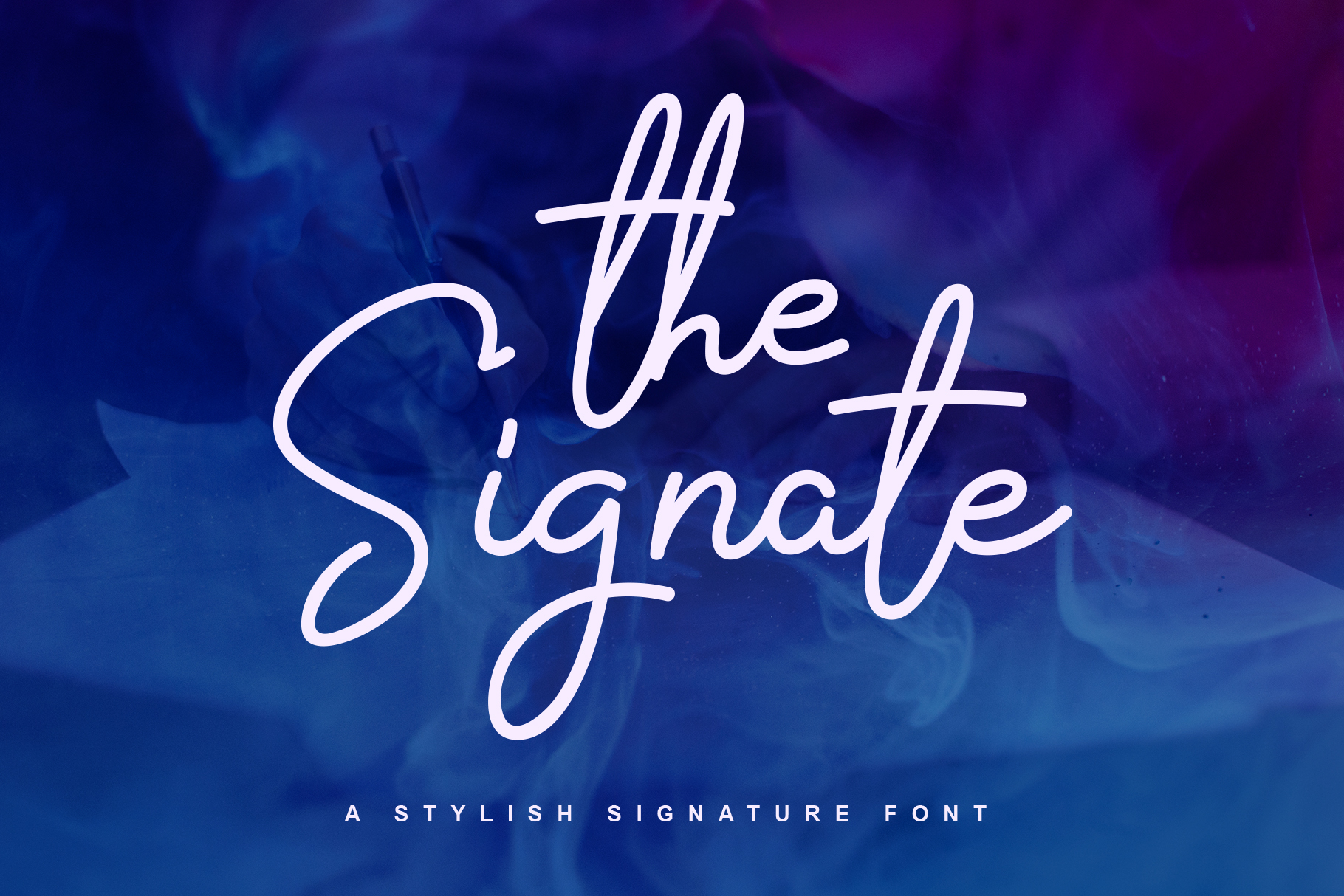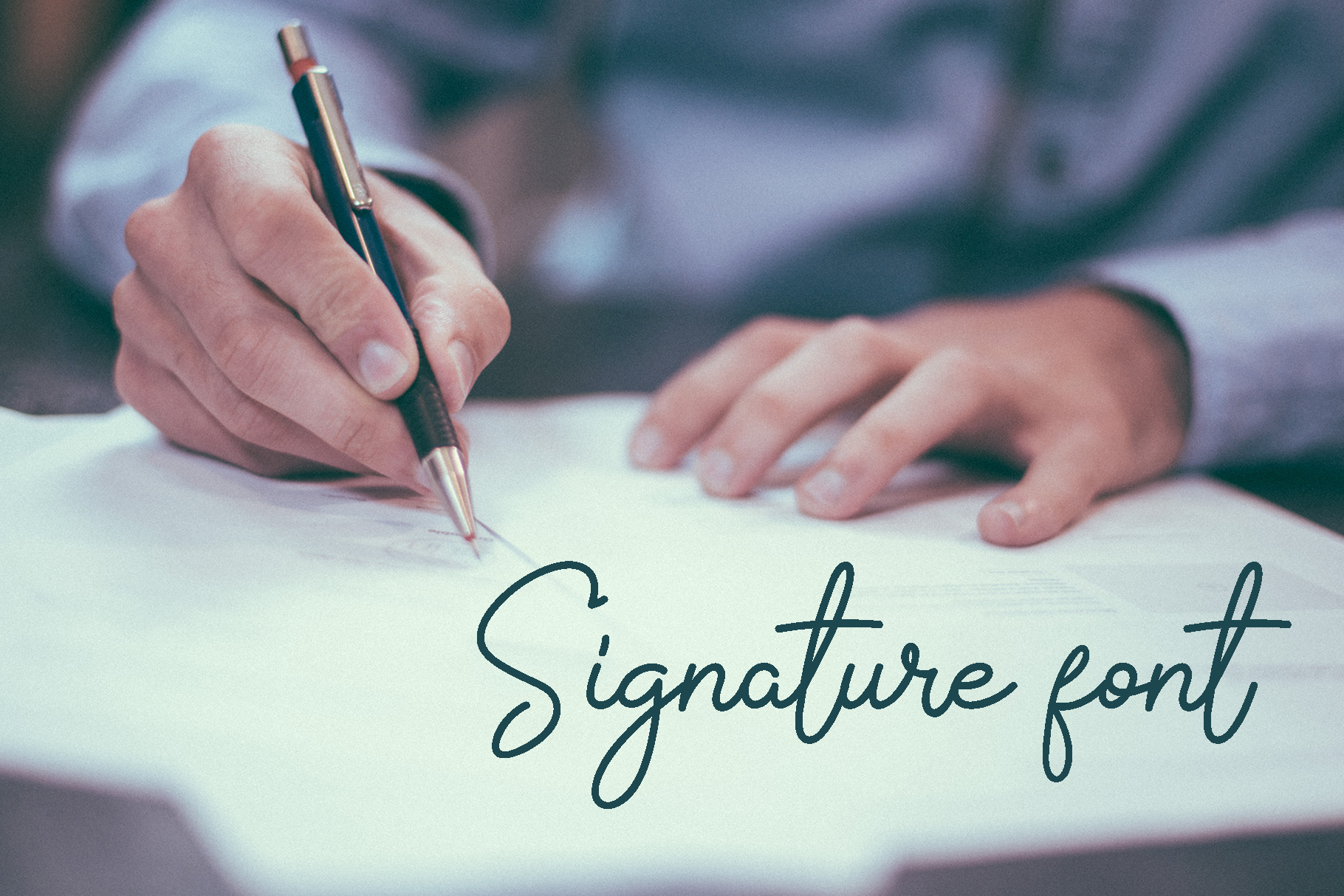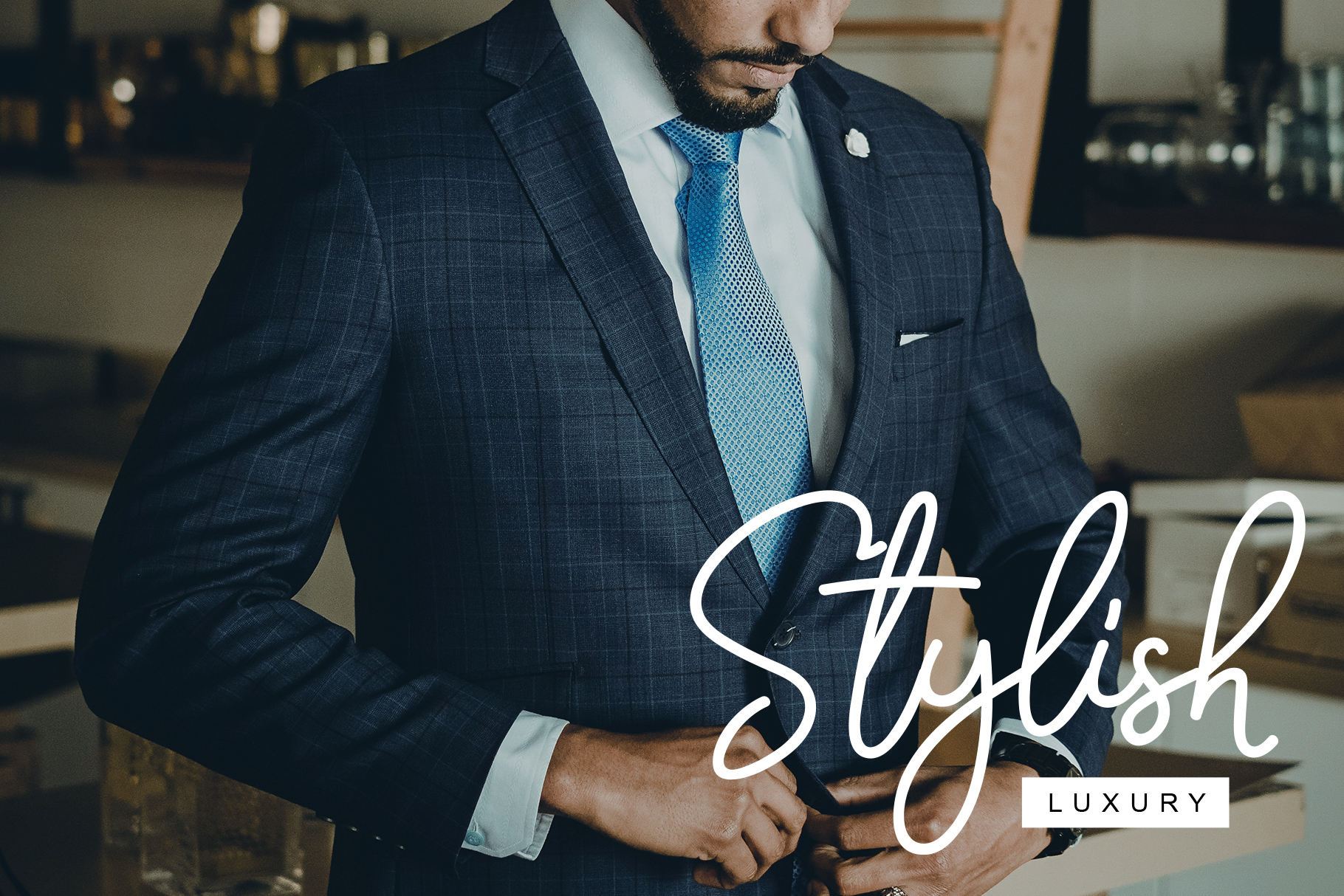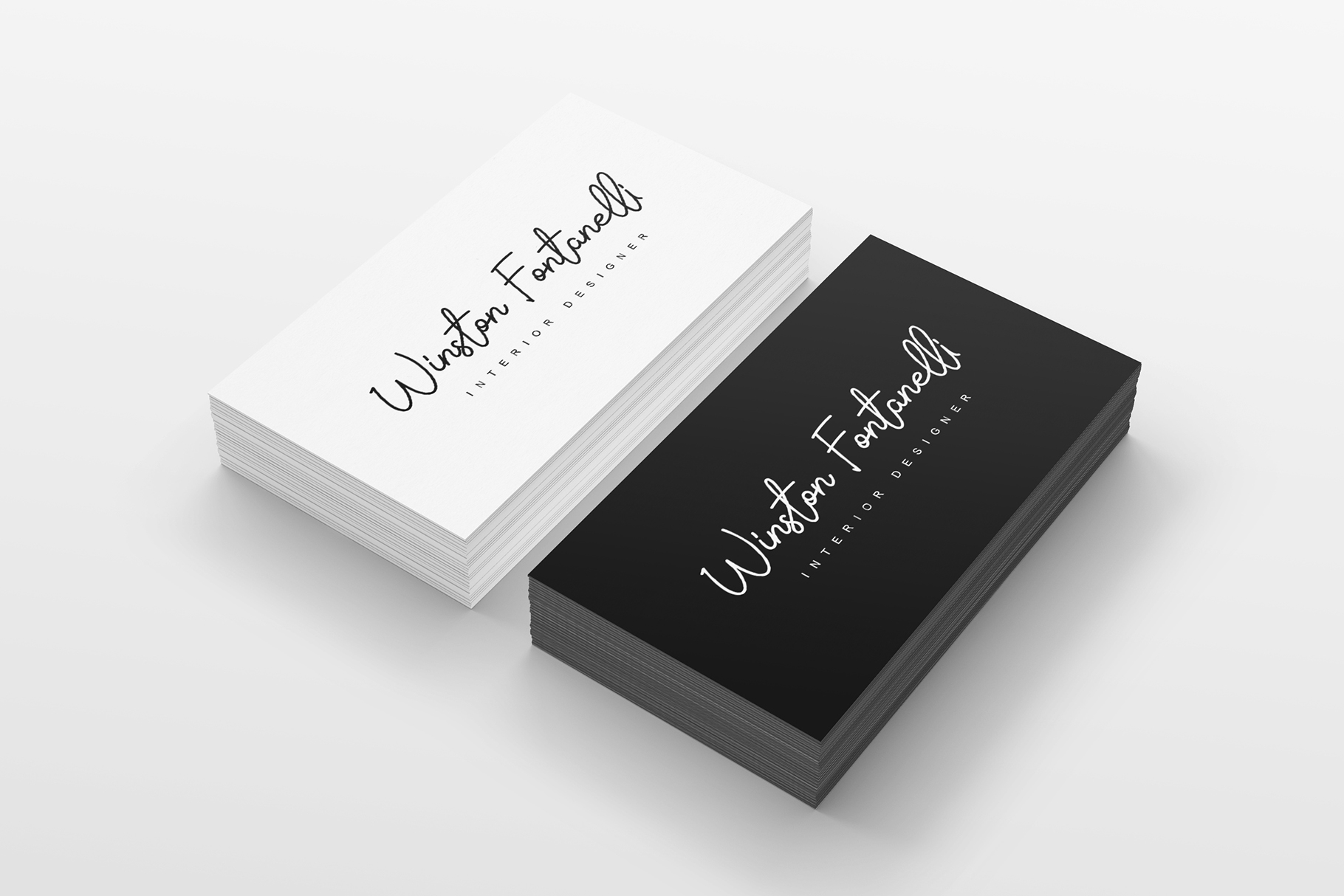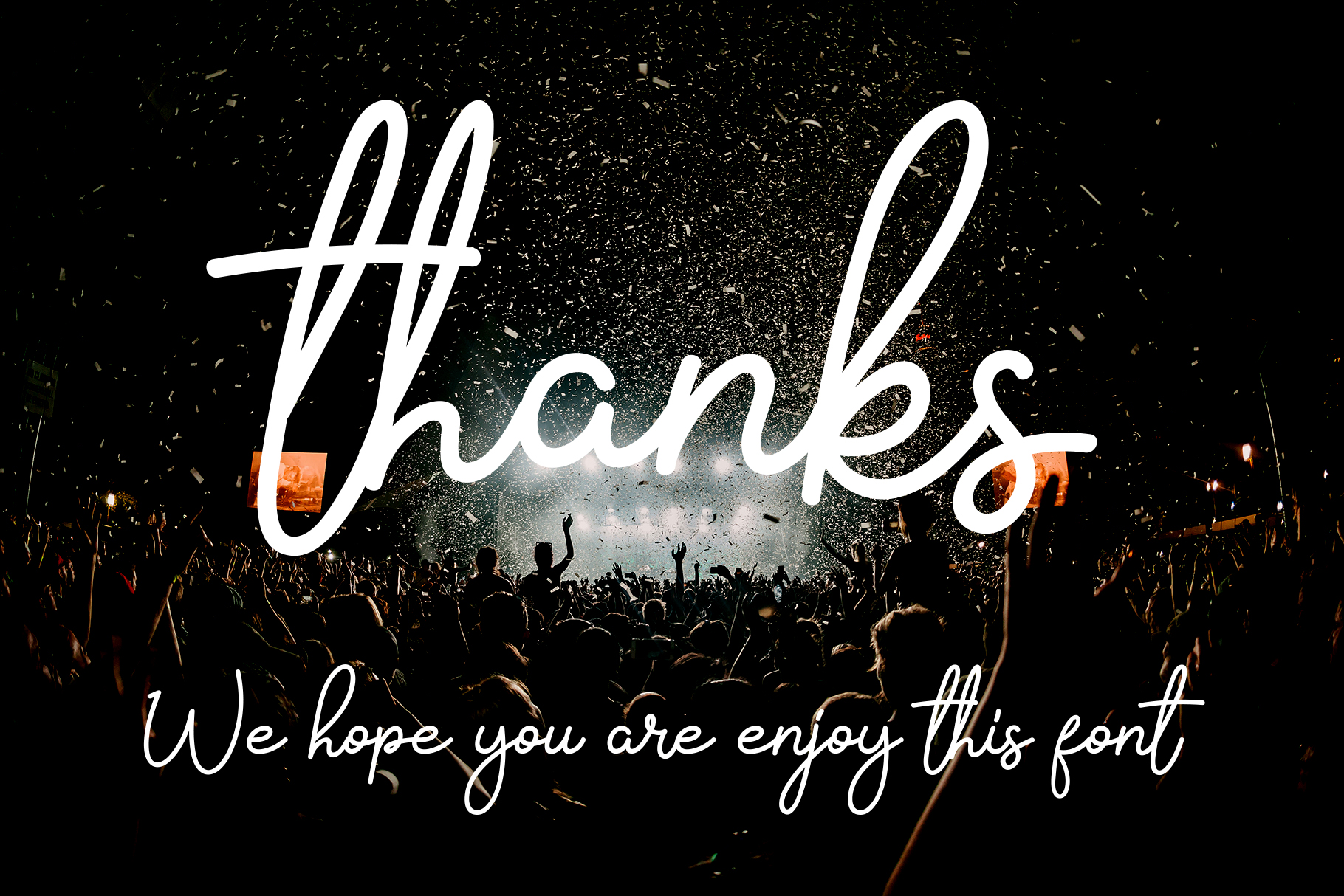
The Signate Free Font
The Signate Free Font is a stylish signature font is a handwritten script font with a clean and luxurious style, this font is great for your next creative projects such as logos, printed quotes, invitations, cards, product packaging, headers, logotypes, letterheads, posters, clothing designs, labels, etc. This free typeface was designed by a talented Alphart. If you like it don’t forget to check out the full version.